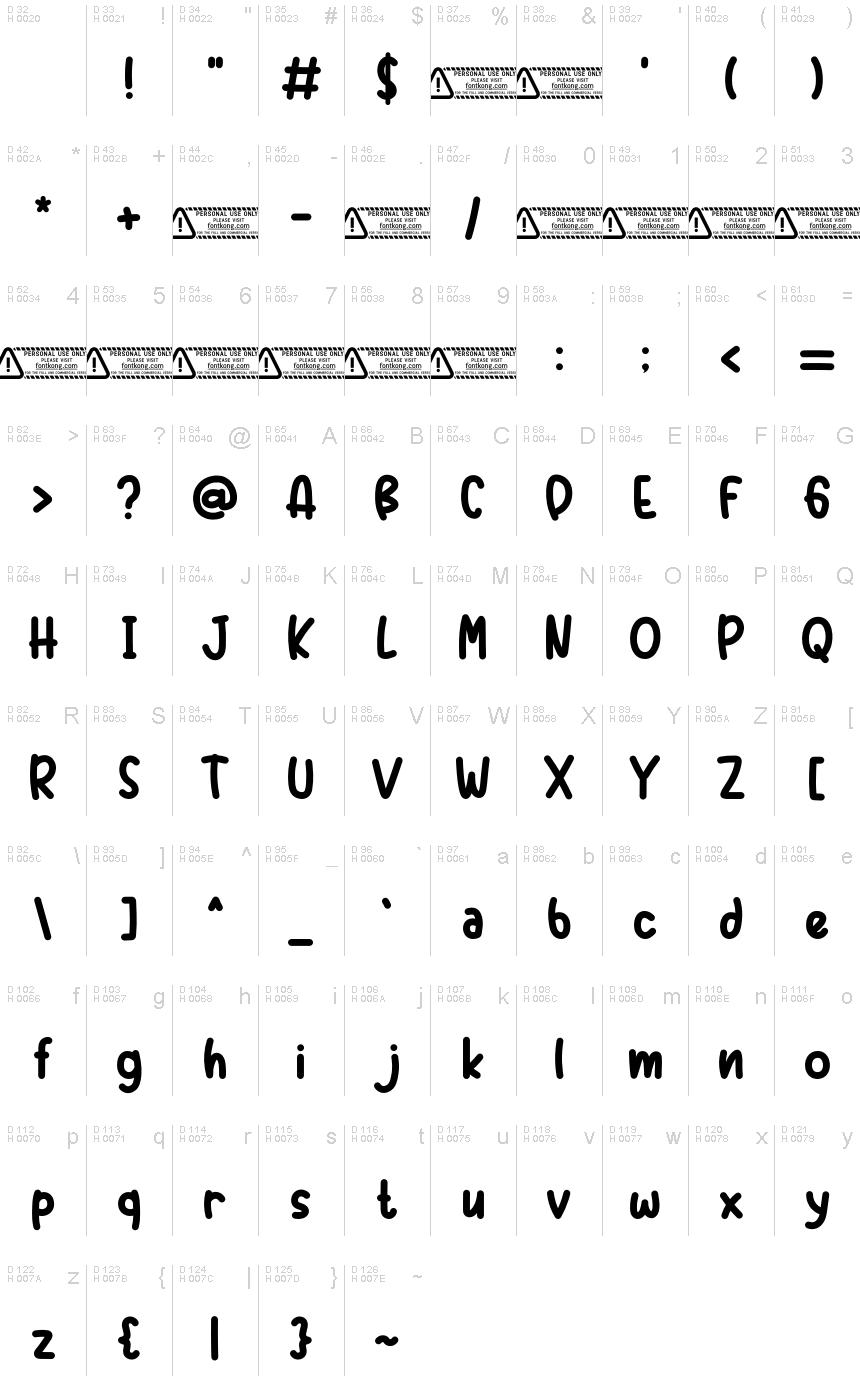
Fun Palace font designed by Kong Font, is a free font featuring smooth bold letters. This fun display typeface has a cartoon-like mood and is completely informal. Perfect for users who want to inject some life into their activity, this casual product leaves no room for dullness.
From posters, ads, packaging labels to branding projects like logos and business cards; the usage possibilities are unlimited. Pairing it with illustrations or stock images will yield exceptional results that impress and assimilate audiences alike!